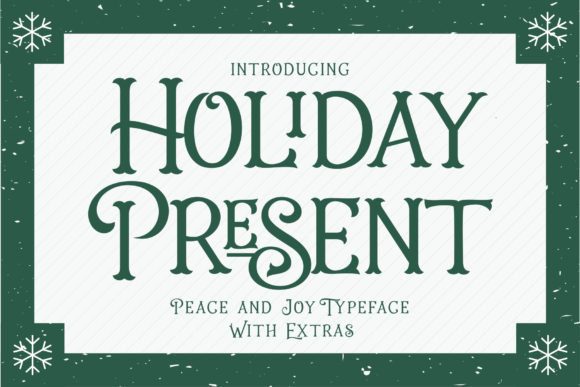
Introducing the Holiday Present Family Font, a delightful and vibrant display font collection that will instantly bring joy and cheer to your designs. Created by the talented 50Fox, this font family is a must-have for anyone looking to add a touch of fun and playfulness to their projects.
With its 9 unique and captivating styles, the Holiday Present Family Font offers a wide range of options to suit any creative vision. Whether you're designing holiday-themed materials, greeting cards, wedding invitations, or even branding for your business, this font collection has got you covered.
Imagine the smiles and excitement that will be evoked when your audience lays eyes on your designs. The Holiday Present Family Font will instantly transport them into a world of happiness and celebration. Its playful and energetic vibe will captivate their attention and leave a lasting impression.
Let your imagination run wild as you explore the endless possibilities this font collection has to offer. Create custom art pieces, design eye-catching logotypes, or print inspiring quotes that will inspire and uplift. The Holiday Present Family Font is your ultimate tool for unleashing your creativity and making a bold statement.
Not only does this font collection excel in digital designs, but it also shines in the world of physical products. From badges and insignia to packaging and headlines, the Holiday Present Family Font will make your products stand out from the crowd. Its vibrant and eye-catching appearance will draw customers in and leave them wanting more.
If you're in the apparel industry, the Holiday Present Family Font is the perfect choice for creating trendy and attention-grabbing t-shirt designs. Let your customers express their individuality and spread positive vibes with every wear. This font collection will turn ordinary garments into unique fashion statements.
Don't miss out on the opportunity to elevate your designs and captivate your audience. The Holiday Present Family Font is your secret weapon for creating memorable and impactful visuals. Its versatility and charm make it a must-have for designers, artists, and creatives alike.